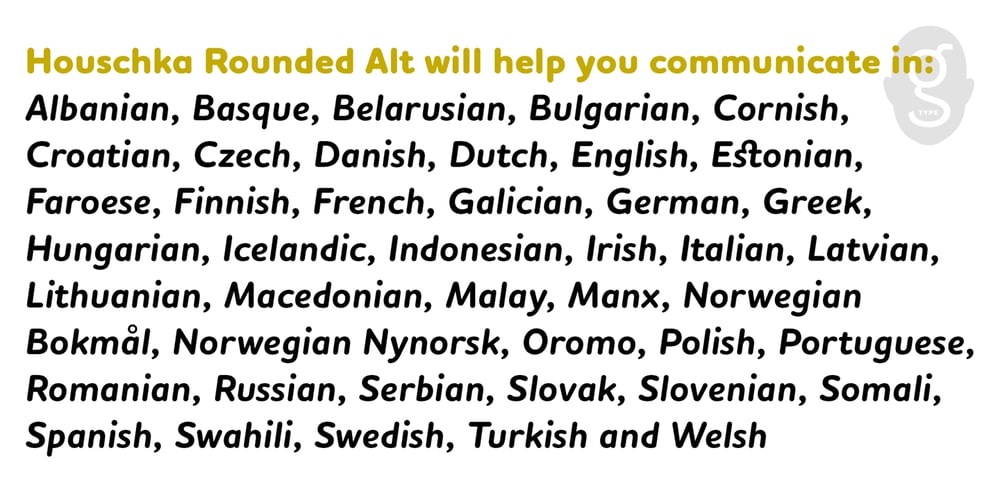
Houschka Rounded Alt Font Family was designed by Nick Cooke and published by G-Type. Houschka Rounded Alt contains 12 styles and family package options. Houschka Rounded Alt is a carbon copy of the Houschka Rounded family with one key difference: the rounded signature glyphs A & W on the default positions swap places with their straight alternates. Houschka was named after Georg Houschka, a sadly defunct confectioner’s shop in Salzburg, Austria, which had a wonderful 1930s frontage and distinctively rounded letterforms in the sign above the door. OpenType features include CE, Baltic, Turkish & Cyrillic language support plus small caps, 3 stylistic sets, contextual alternates, ligatures and 4 sets of numerals. Houschka Rounded Alt is a clean and legible modern sans serif typeface which shares the humanist qualities of Gill Sans and Johnston but retains a uniquely charming character of its own. The monolinear structure, rounded terminals and rolling curves give Houschka Rounded Alt a soft and friendly appearance.